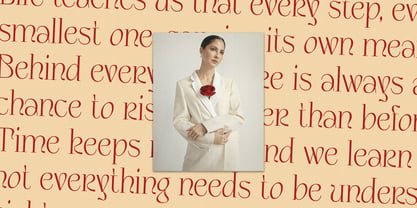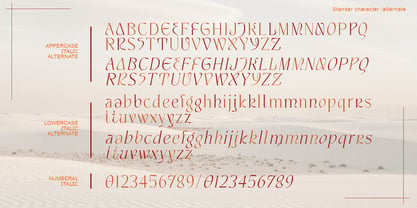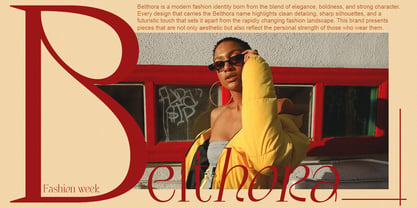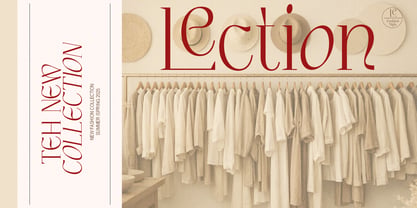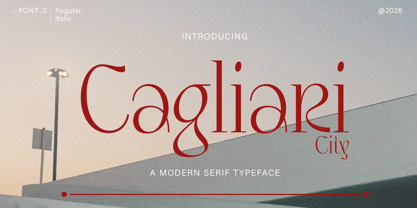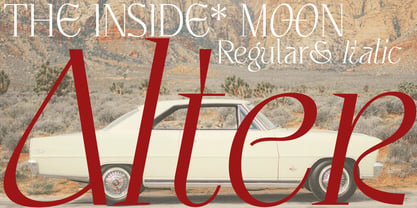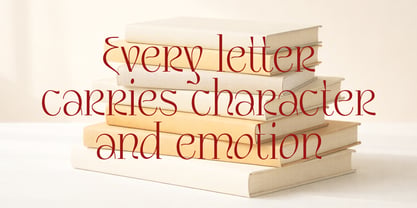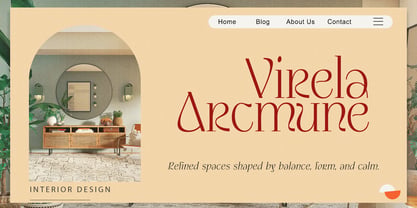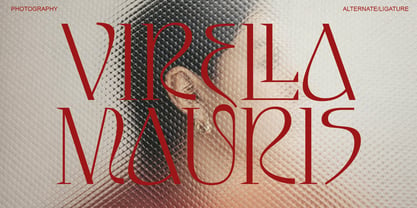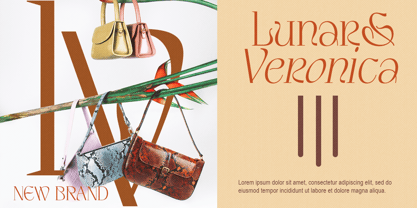
Cagliari City
The Cagliari City Font Family was designed by khaidir and published by Gatype. Cagliari City contains 2 styles and family package options.
Cagliari City is my new elegant serif font that will give your projects a touch of luxury and style. It's perfect for logotypes, branding, monograms and wedding invitations, blog headlines, and more. Browse through all the previews and get as inspired as I was when creating this font. Include files: -Letters, Numbers, Puntuations, Accens Ligatures, Swashes, Alternates Important information: To access the alternatives, you must have access to an older version of Photoshop to copy/paste the glyphs from the included PSD, OR the Glyphs Panel, which can be found in Photoshop CC or any Version of Adobe Illustrator. If you've got any questions don't hesitate to drop me a message thank you